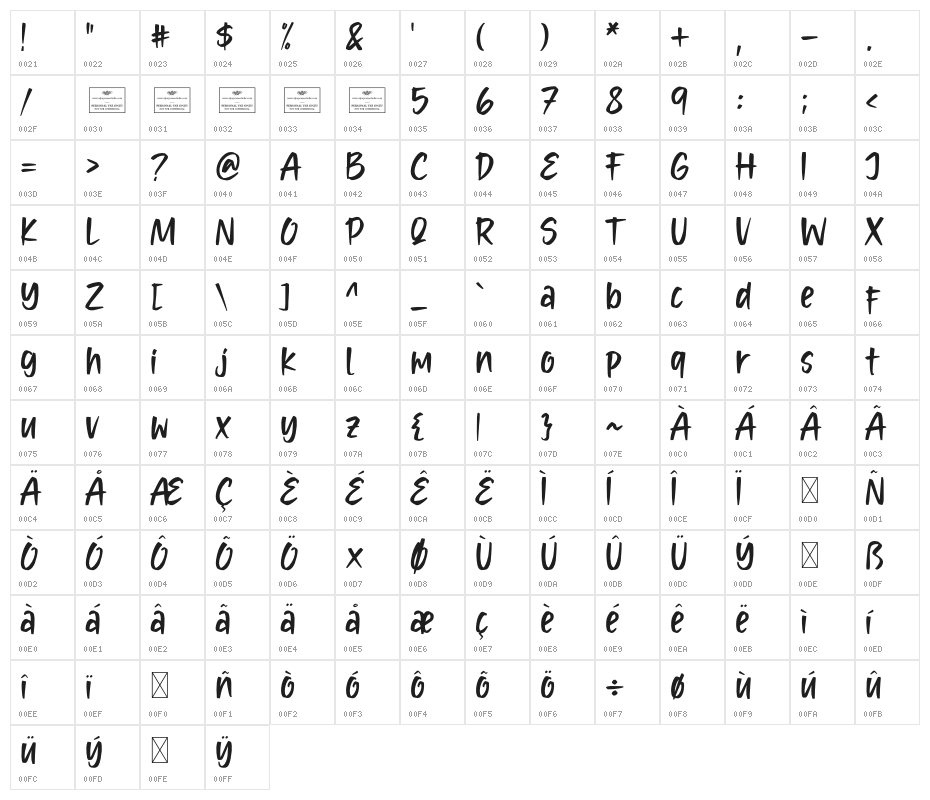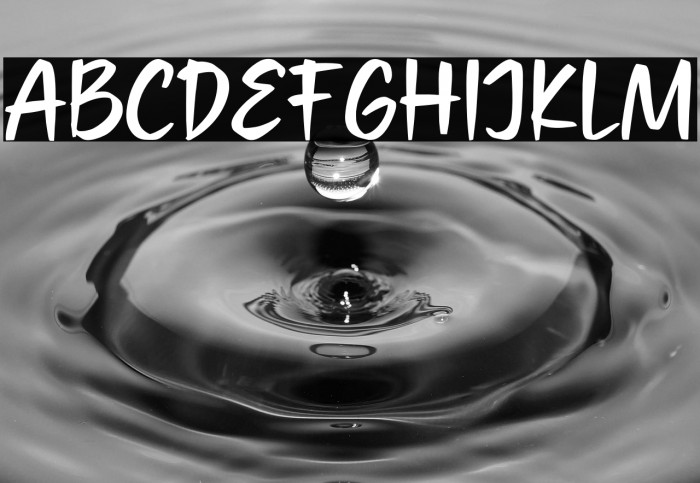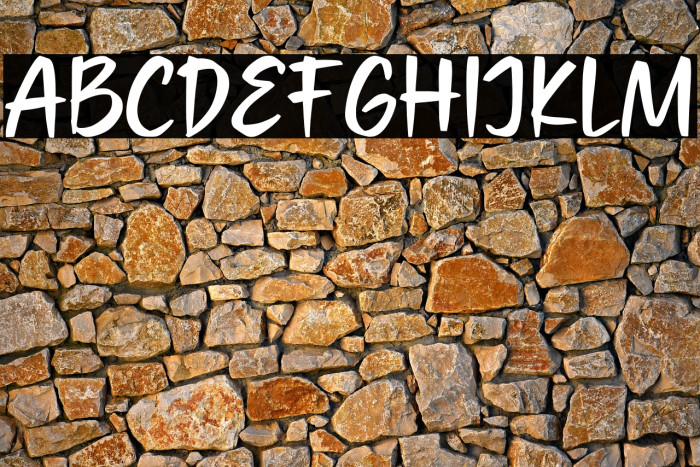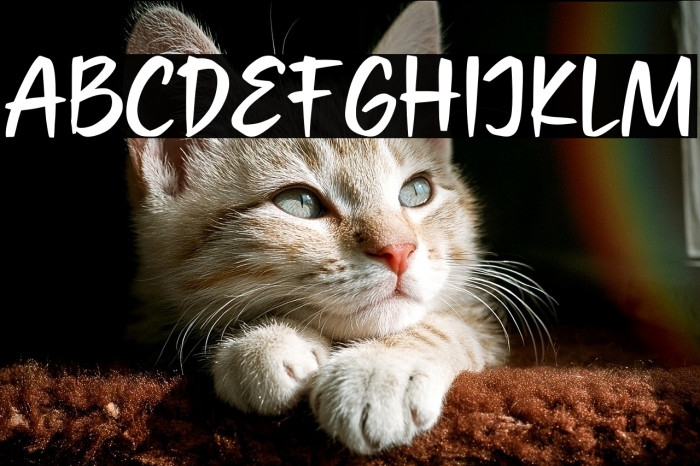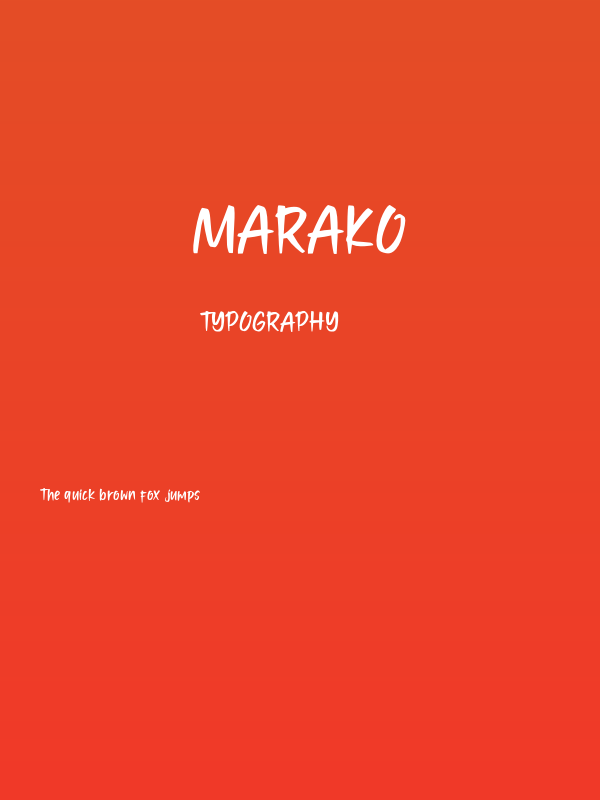
Marako Font
Marako Description
A bold, handwritten style font with a playful and energetic appearance, featuring irregular strokes and a casual feel.
| Overall Style | Casual, Energetic |
| Use Case | Headlines, Informal text, Branding |
| Proposed Projects | Greeting cards, posters, informal branding. |